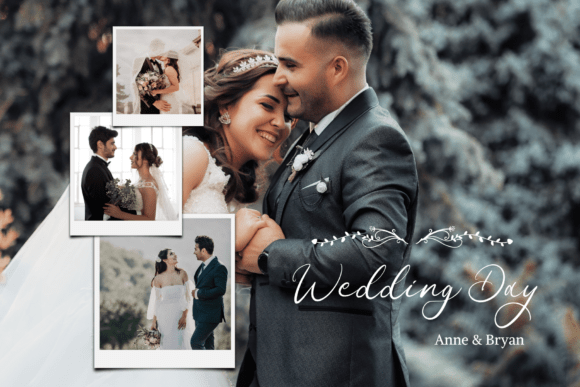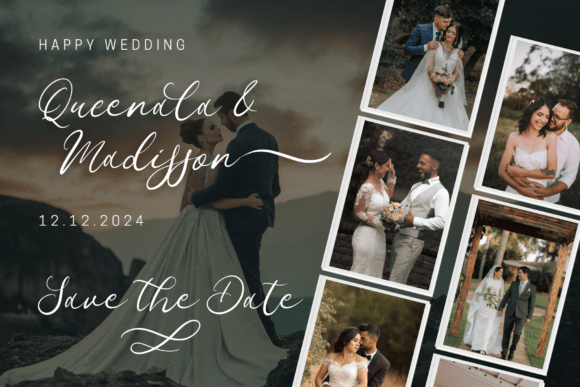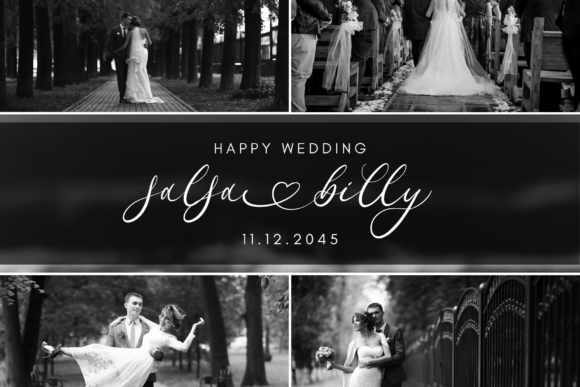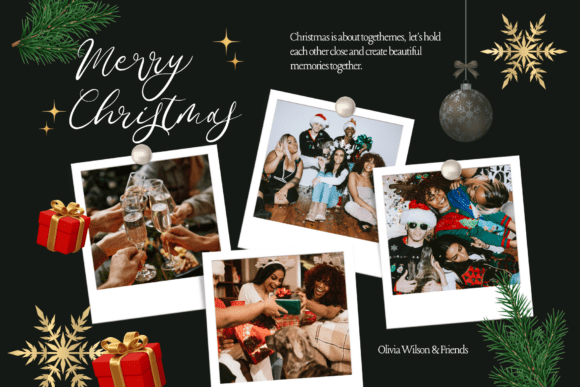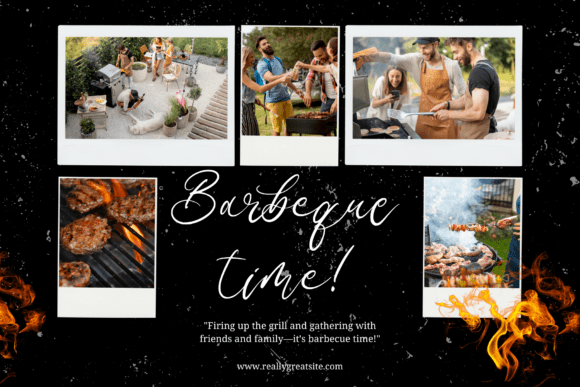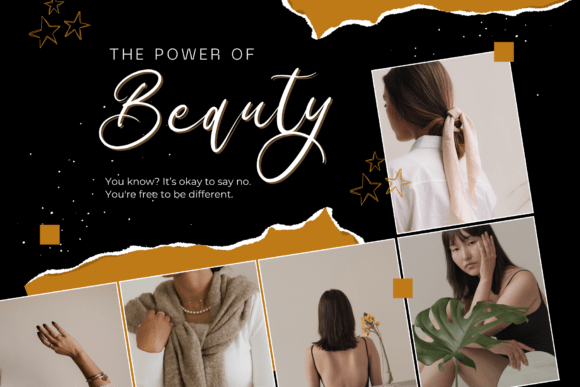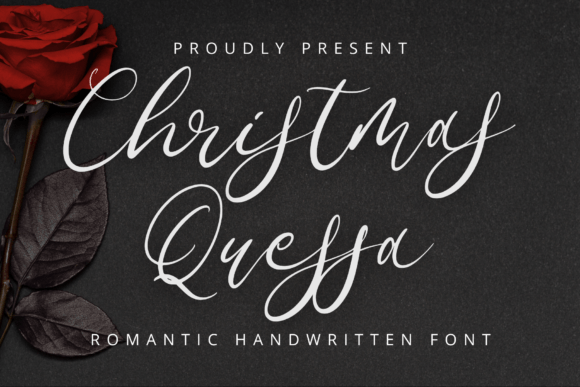
Introducing Christmas Quessa Font: The Ultimate Holiday Elegance
As the holiday season approaches, designers and crafters are on the lookout for the perfect font to add a touch of elegance and warmth to their projects. Look no further than Christmas Quessa, a beautiful and romantic script font designed to bring sophistication and charm to your holiday designs. With its smooth curves, delicate swashes, and rich collection of ligatures and alternates, Christmas Quessa is the perfect addition to any design.
A Font that Exudes Elegance and Warmth
Christmas Quessa is more than just a font – it’s an experience. Its smooth curves and delicate swashes evoke a sense of romance and sophistication, perfect for holiday projects that require a touch of elegance. Whether you’re designing Christmas cards, wedding invitations, or social media quotes, Christmas Quessa adds a charming handmade feel that will make your designs stand out.
One of the best things about Christmas Quessa is its versatility. This font is perfect for a wide range of design projects, including:
- Christmas cards and invitations
- Social media quotes and graphics
- Branding and packaging
- Festive crafts and DIY projects
Whether you’re a professional designer or a crafter, Christmas Quessa is the perfect font to add a touch of elegance and sophistication to your projects.
What Sets Christmas Quessa Apart
So, what makes Christmas Quessa so special? Here are just a few features that set it apart:
- Smooth curves and delicate swashes: Add a touch of romance and sophistication to your designs
- Rich collection of ligatures and alternates: Create unique and personalized designs with ease
- Charming handmade feel: Add a personal touch to your designs that will make them stand out
- Easy to use: Perfect for designers and crafters of all skill levels
How to Use Christmas Quessa in Your Designs
Using Christmas Quessa in your designs is easy. Here are a few tips to get you started:
- Pair it with a bold font: Create a striking contrast by pairing Christmas Quessa with a bold font
- Use it for headings and titles: Add a touch of elegance to your headings and titles with Christmas Quessa
- Experiment with colors and textures: Add depth and interest to your designs by experimenting with different colors and textures
| Font Name | Christmas Quessa Font |
| Author | Nox Studio |
Christmas Quessa is a beautiful and romantic script font that is perfect for adding a touch of elegance and warmth to your holiday designs. With its smooth curves, delicate swashes, and rich collection of ligatures and alternates, this font is sure to become a favorite among designers and crafters. Whether you’re working on Christmas cards, wedding invitations, or social media quotes, Christmas Quessa is the perfect addition to any design.